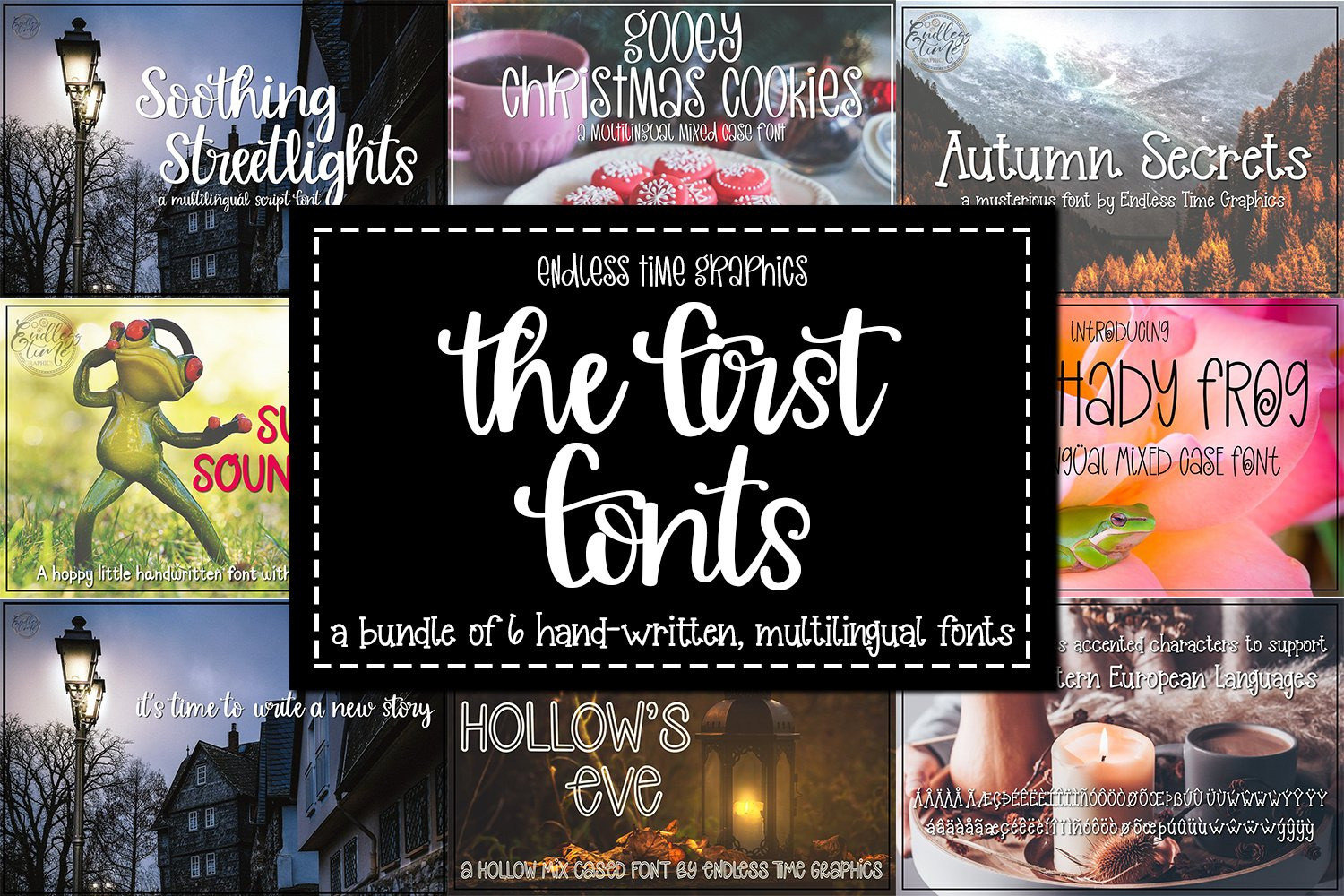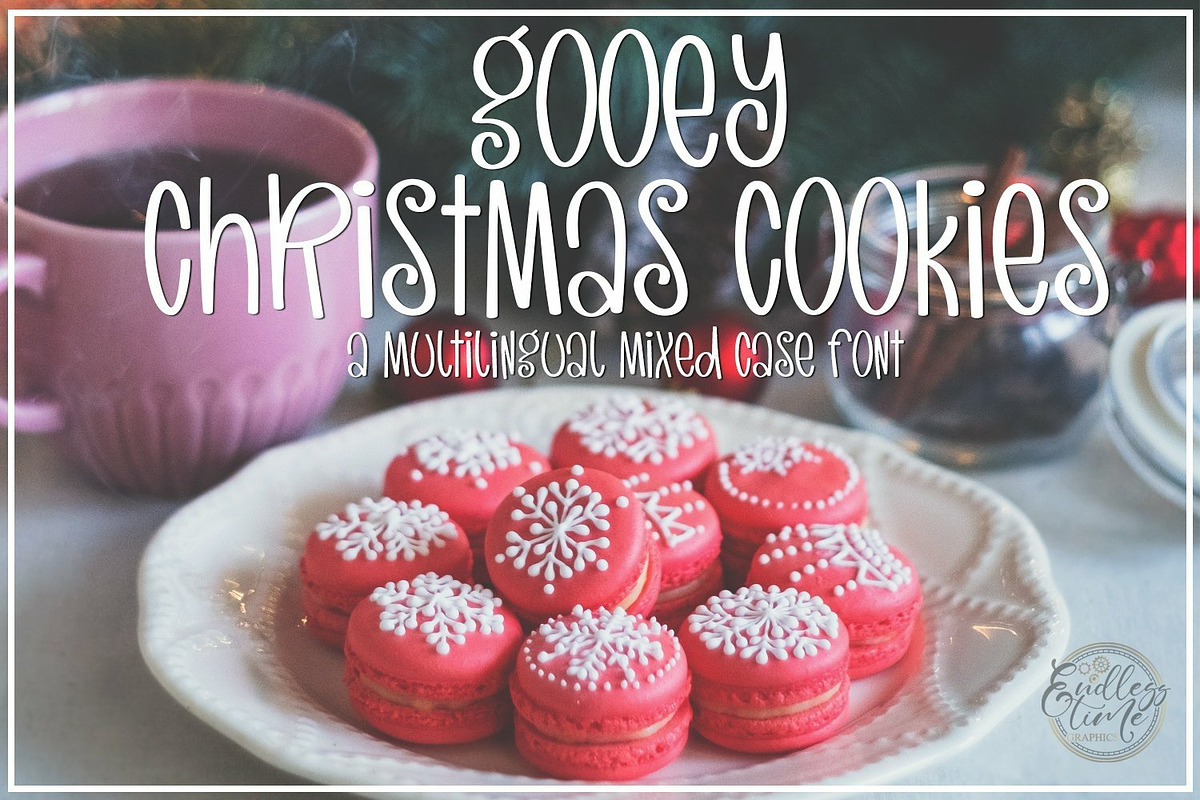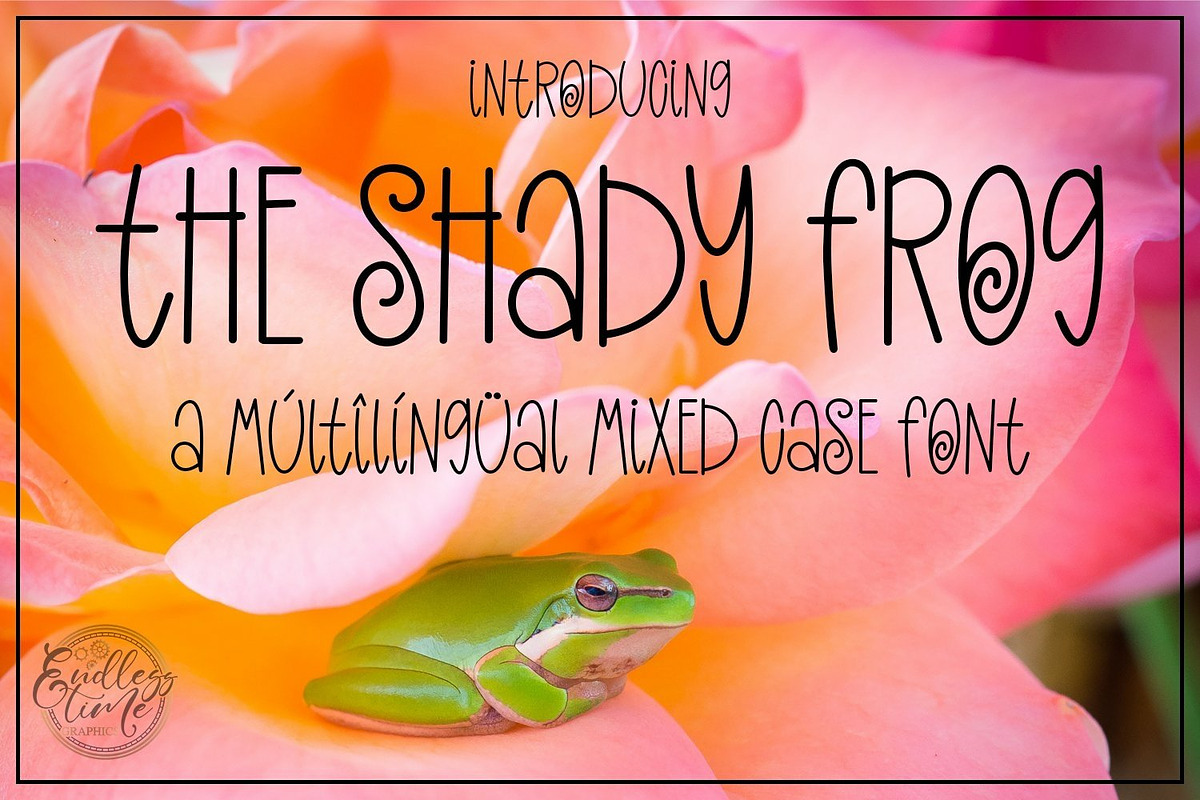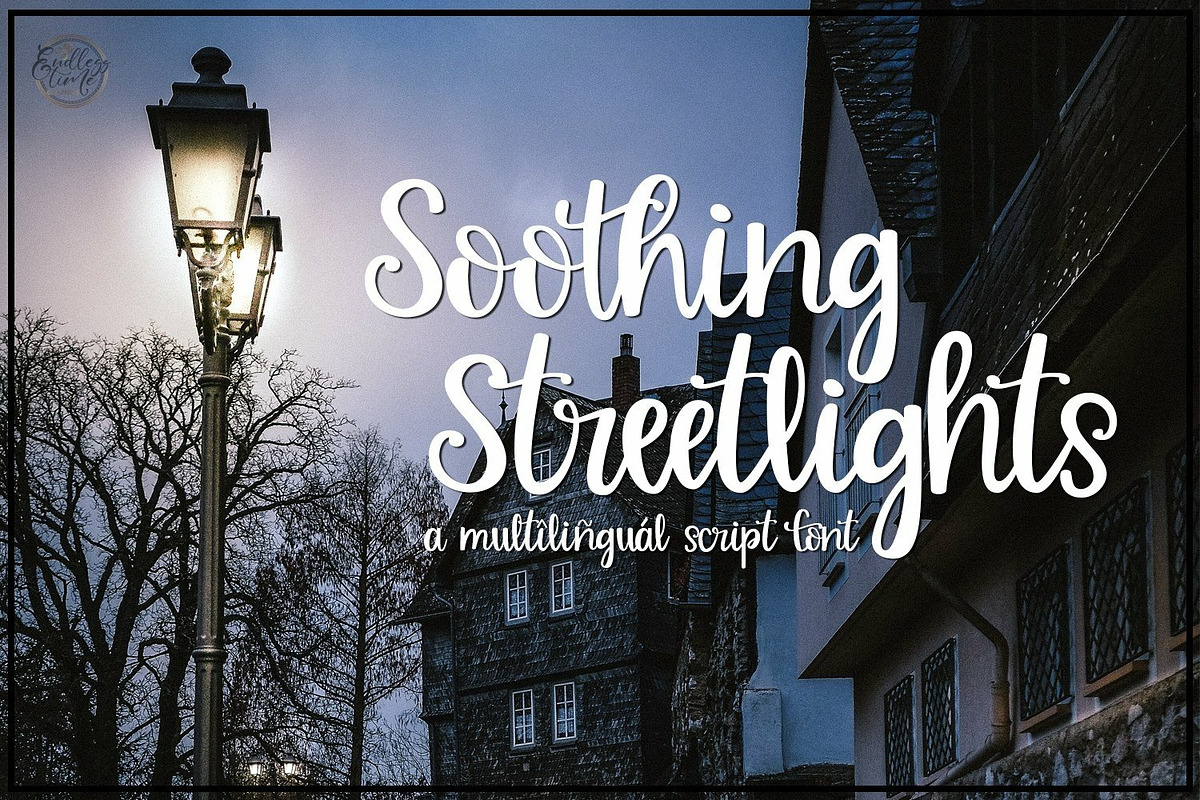
The First Fonts Bundle - 6 Fonts
There is a first time for everything - and this is definitely a first for me. I am so excited to share with you my very first Font Bundle! This set 'The First Fonts' - is a collection of the first 6 fonts I hand lettered, coded and published to sell!
Summer Soundtrack was the first font I published to sell. I lettered this on one of the first warm nights in April 2020, shortly after the Covid Pandemic. I was sitting in our backyard, enjoying the warmth of the sun, the smell of bbq and the laughter of my girls playing. I wrote it very quickly and had it cleaned and published in less than 48 hours. 👈 That never happened again 😂 I didn't know it then, but that night was a key moment I needed, to begin my healing journey.
Autumn Secret was my second font - and it's crazy to think I have zero memories of actually writing it 😂 but I do remember the night I shared it. I was scared sh*tless - there is always a bit of fear of rejection when releasing a font, and I really loved this one. But I put it out there, and I just felt so much love. It was an incredible feeling, and it was then that I knew I could probably make any kind of font I wanted. I also remember it was one of the first secret $1 Deals Design Bundles hosted ❤️ 🥰
Next came All Hollows Eve - this one was interesting to letter. The brush came from Justina Tracey - and the way it worked, I had to keep my pencil pressed down the entire letter, in order for it to be hollow, and without overlapping lines. Super fun to clean and great for coloring books!!
The Shady Frog is a fun one! I hadn't published a font in about a year, but got the itch. It was in the darkest days of winter -- some of the darkest days I had seen in a very long time. This font brought my so much light and joy. If you haven't guessed by now, I love frogs and I love pink so, the picture was just perfect. Today, as I reflect, the name Shady Frog couldn't have been more perfect either haha 😍
Gooey Christmas Cookies is the next! I started lettering it shortly after The Shady Frog - but then I was thrown a curve ball and the direction of my life changed, in what felt like an instant. I stopped lettering, I stopped designing, I stopped coding fonts. It took time, longer than I hoped, but I've spent the last few months resting and healing, learning, listening. It was like a light switched turned back on one day - and I picked up my laptop and kept going. I thought this font would turn out with much darker vibes, I originally intended to make it for Halloween - Spooky Season is what I was going to name it 🎃 - but by the time I sat down to settle on a name/display images, I was drawn to some of the things I love most - cookies and Christmas 🎄
Aaah - and finally we are at Soothing Streetlights - this was another first. I started this script back in 2020 (remember I can make any font now 😂 ) - it was my first Script font, and oh boy was it intimidating. I had taken Teela's Learn Font Making course - I've had the honor to learn from some greats like Missy Meyer and Justina Tracey - I was going to write the best script ever 😂 Wrong - I froze, I got half way finished and never looked at it again. I was so stuck on it being perfect, it never got finished. After Gooey Christmas Cookies, I went on to start another font - but then I remembered this guy, tucked away in a folder all on its own. In less than 48 hours, I finished it, and it turned out to be more amazing than I could have imagined. It's not perfect, there are likely spacing/kerning issues - but the important thing is it is finished, and I am now starting to clean and code my next script - keep your eyes out, it will release soon!